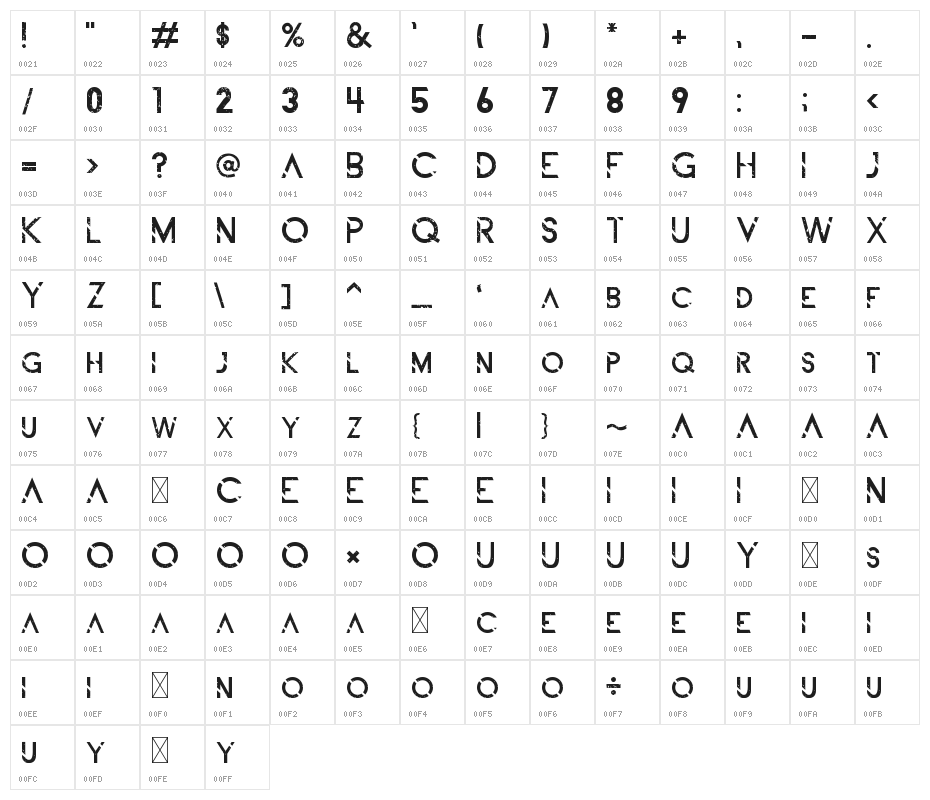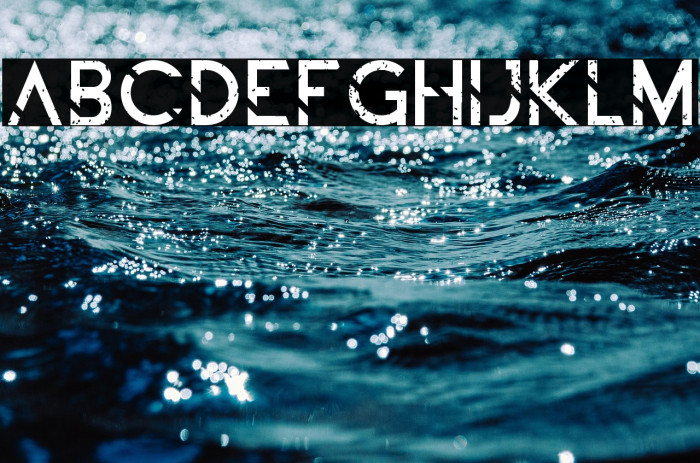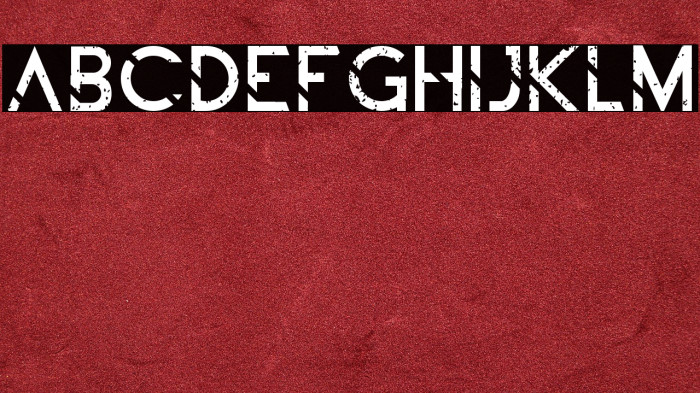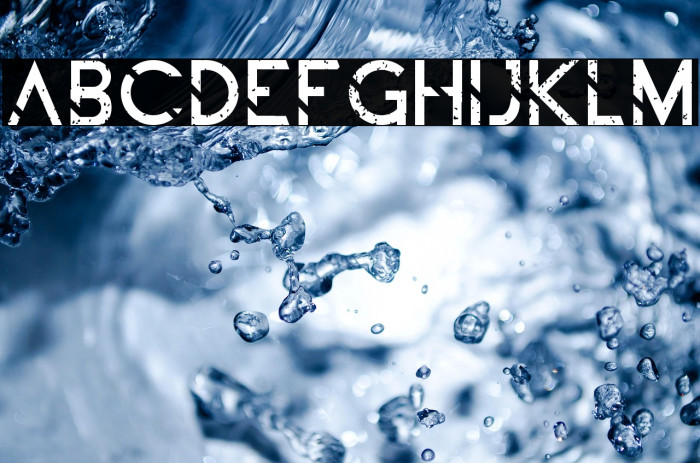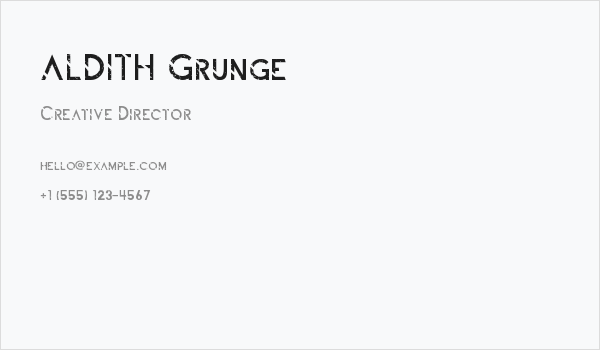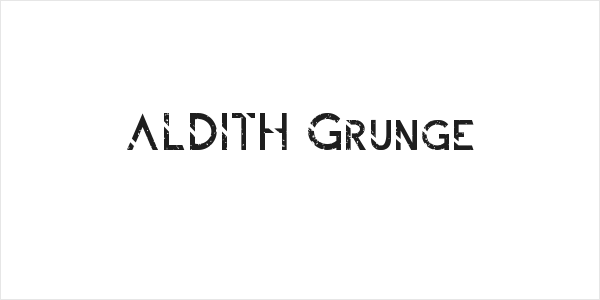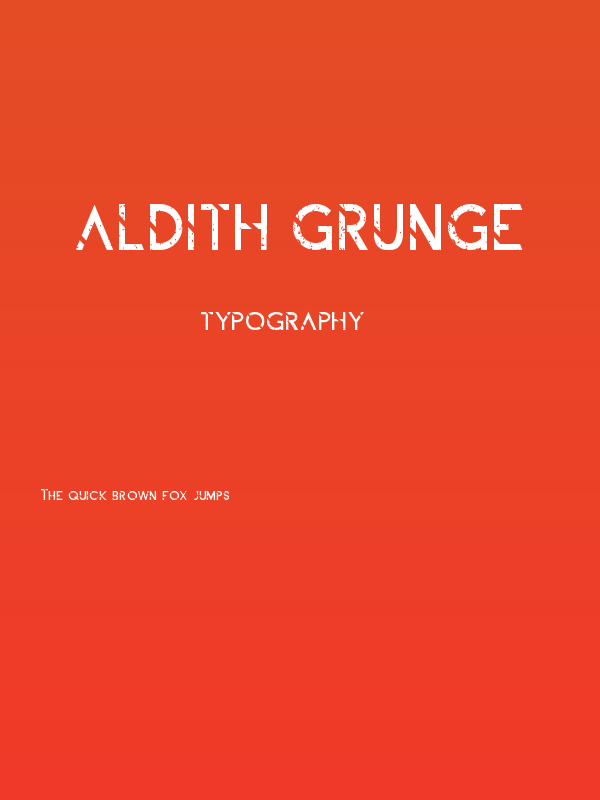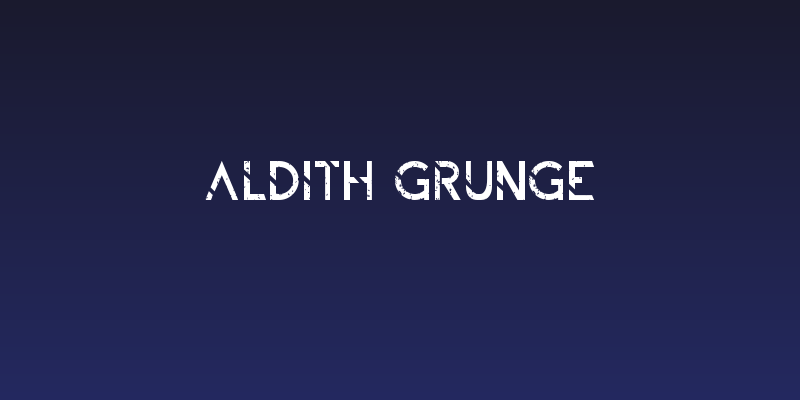
ALDITH Grunge Font
ALDITH Grunge Description
This font features a bold, distressed style with a grunge aesthetic. The characters are uppercase and numerals, each with a rough, textured appearance that suggests wear and tear. The design incorporates irregular edges and a slightly eroded look, giving it a unique, edgy feel. The font maintains a consistent weight throughout, with medium contrast in stroke thickness. Its bold and impactful presence makes it suitable for eye-catching designs. The character spacing is normal, allowing for clear readability despite the distressed elements.
| Overall Style | Grunge, Edgy |
| Proposed Projects | Ideal for music album covers, posters, urban-themed designs, and branding that requires a rugged, edgy look. |